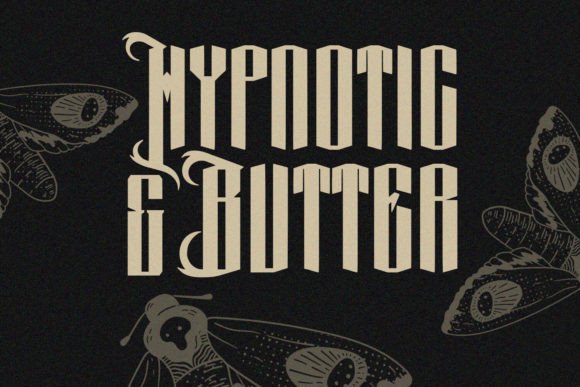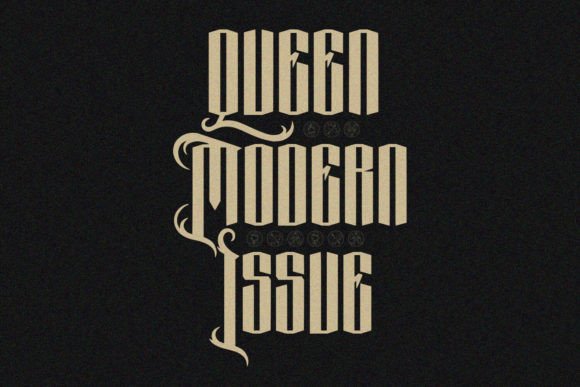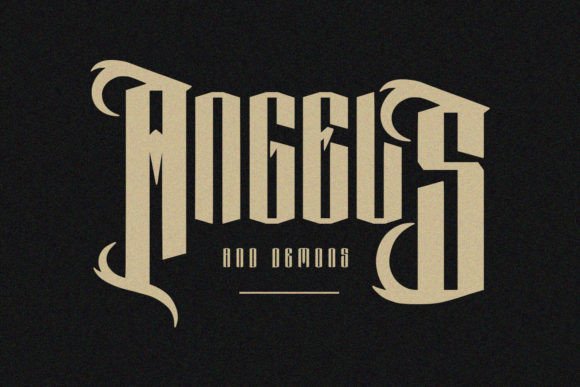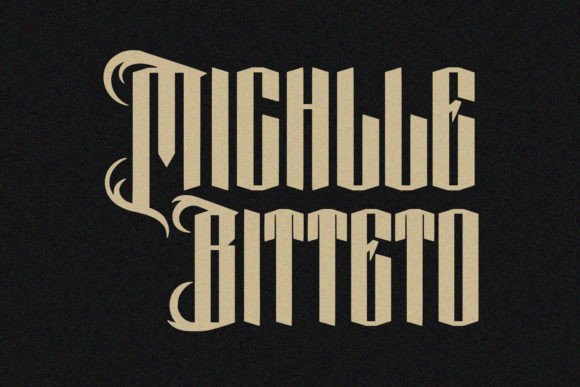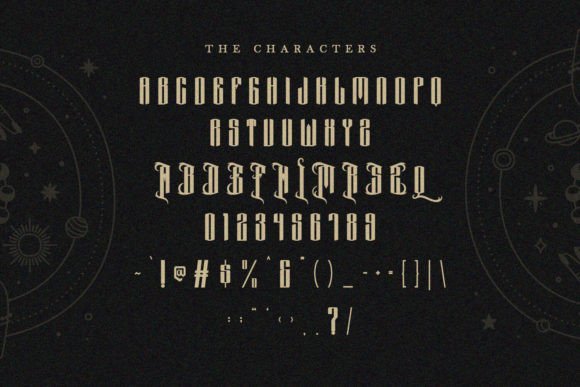
Unleash the Drama with Angel Dome Font
Have you ever stared at a blank canvas, waiting for inspiration to strike? You know, that moment when the perfect font suddenly pops into your head, and your entire design takes off? It’s those magical moments that make us fall in love with our craft. For me, it was the moment I laid eyes on the Angel Dome Font – a majestic, blackletter display font that screams drama and elegance.
Angel Dome Font is more than just a font; it’s a statement piece that adds historical flair to any project. Its intricate, ornate letters evoke the grandeur of medieval script, making it perfect for eye-catching titles, logos, and posters. As a designer, you’ll appreciate the versatility and sophistication it brings to your work.
Angel Dome Font Key Features
- Font Family: Angel Dome is a unique, hand-drawn font designed to evoke a sense of elegance and sophistication.
- Unique Characteristics: Angel Dome’s distinctive, hand-drawn design features intricate details and subtle variations, giving it a one-of-a-kind look.
Angel Dome Font Review
As a designer, I’ve had the chance to work with the Angel Dome Font, and I must say, it’s an interesting choice. ✨ Here are some of its strengths and weaknesses.
- The font’s unique, whimsical feel is perfect for projects that need a touch of magic.
- Its varying line widths and x-heights add visual interest and depth to text.
- The font is highly customizable, making it suitable for logos, branding, and other applications where a personal touch is required.
- ⚠️ The font’s irregularities can make it difficult to read at smaller sizes or in environments with low contrast.
- ⚠️ The font may not be suitable for large blocks of text or formal, professional applications due to its playful nature.
- ⚠️ Some characters, such as the ‘i’ and ‘j’, can be easily confused with each other.
Overall impression:
While the Angel Dome Font has its limitations, it’s a great choice for projects that need a touch of personality and whimsy. With careful consideration and use, it can add a unique and memorable element to your design.
The Angel Dome Font is ideal for creating whimsical and mystical designs, such as:
– Fantasy book covers and illustrations
– Spiritual or wellness-related branding